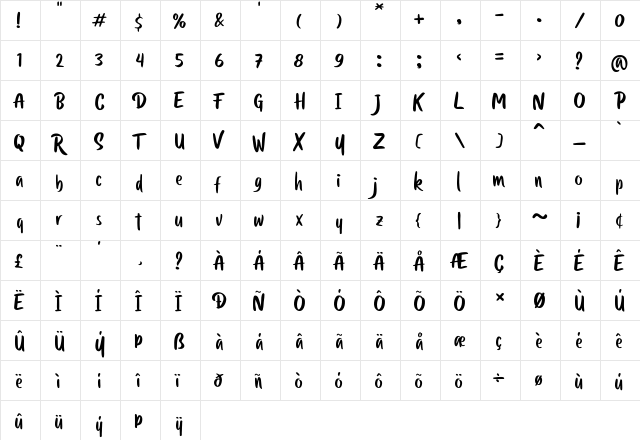
Anglice Regular
| Foundry | Letterhend Studio |
Design Context for Anglice Typeface
Anglice is a composed and adaptable typeface that performs quietly and consistently across a wide range of design contexts.